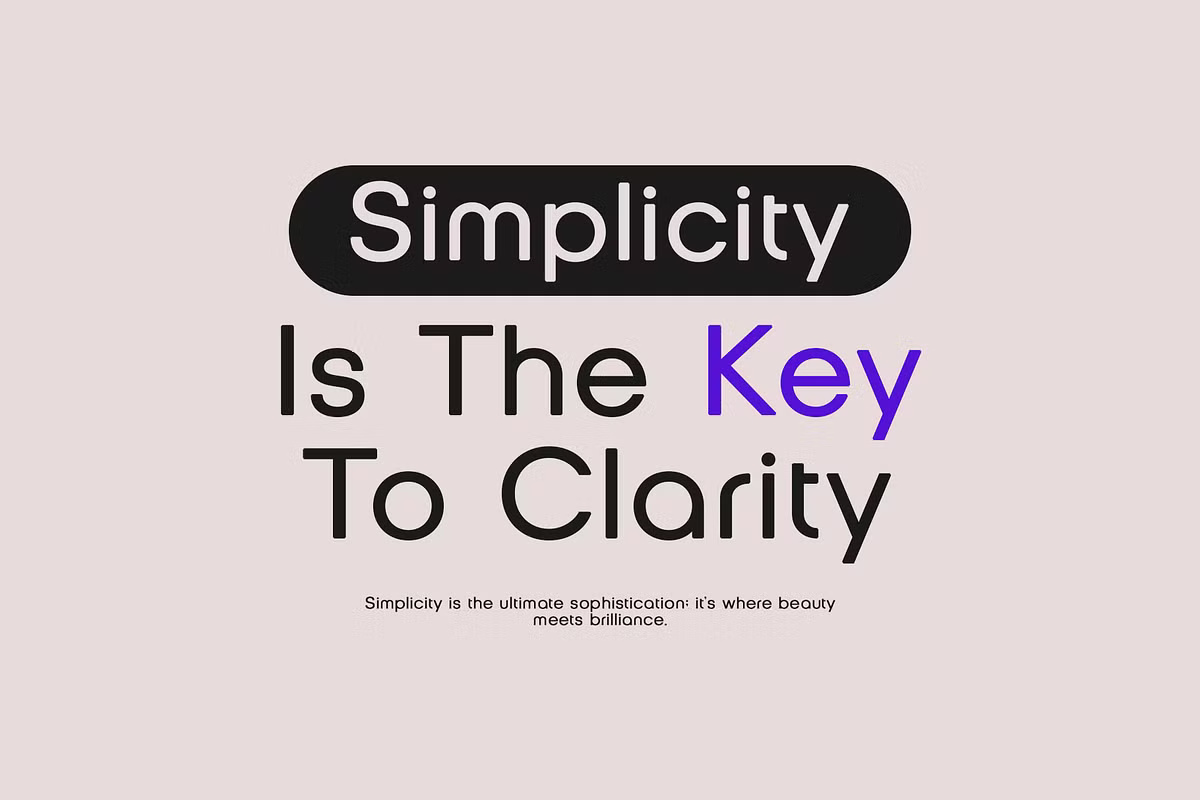
Haigie Font
Haigie is a modern sans-serif font designed for versatility and simplicity. Whether you’re expanding your font library or looking for the perfect typeface for your next project, Haigie is a valuable addition.
This clean and contemporary font is ideal for display purposes, making it perfect for headings, logos, branding, magazines, product packaging, and invitations.
Haigie Sans Serif Font